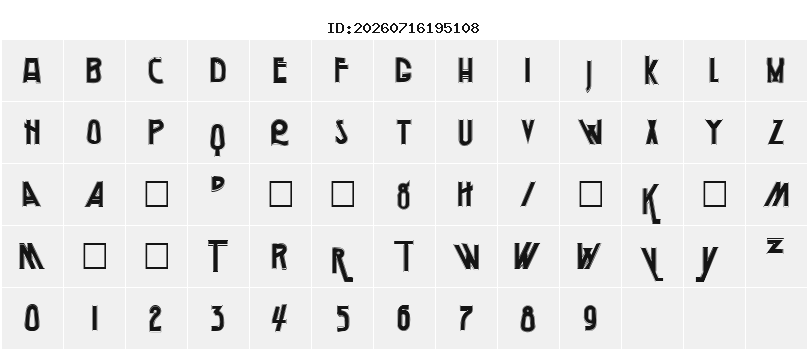
• Font Name: Airkraft
Airkraft.ttf is a modern, elegant sans-serif font designed for ultimate readability and visual harmony. Perfect for branding, headlines, web design, and print materials.